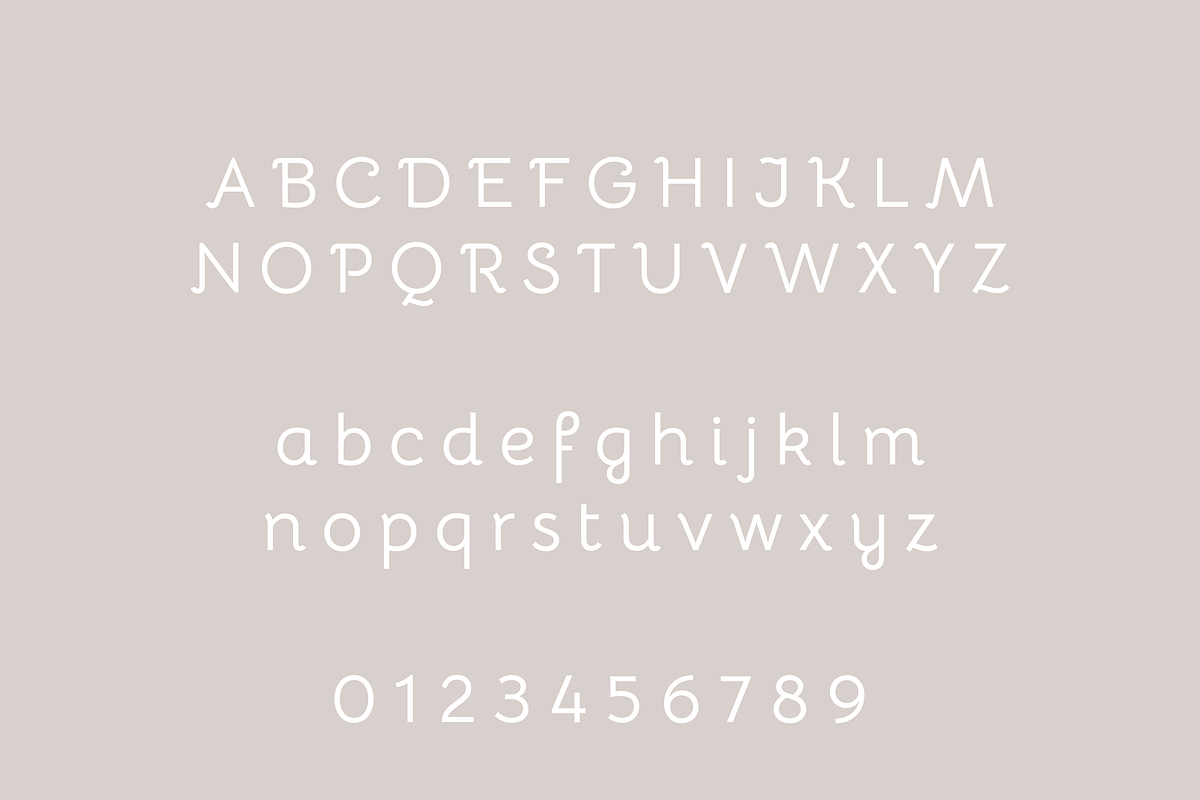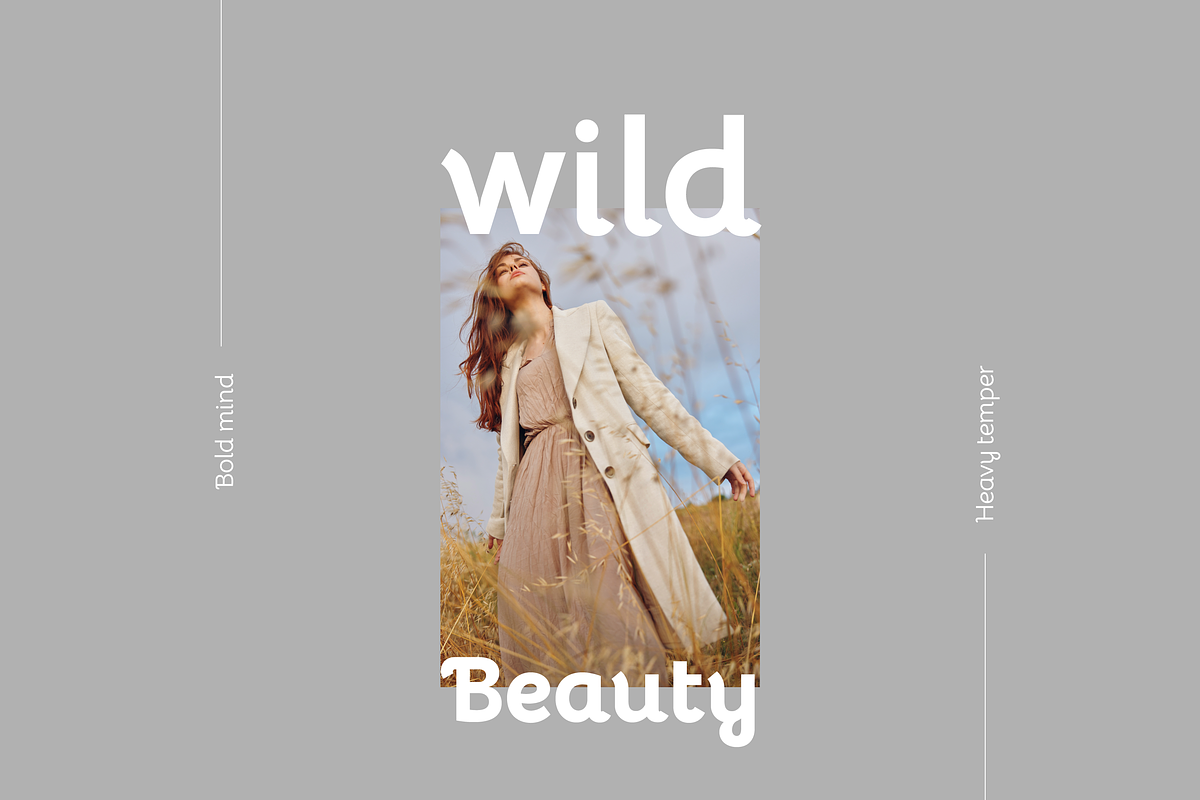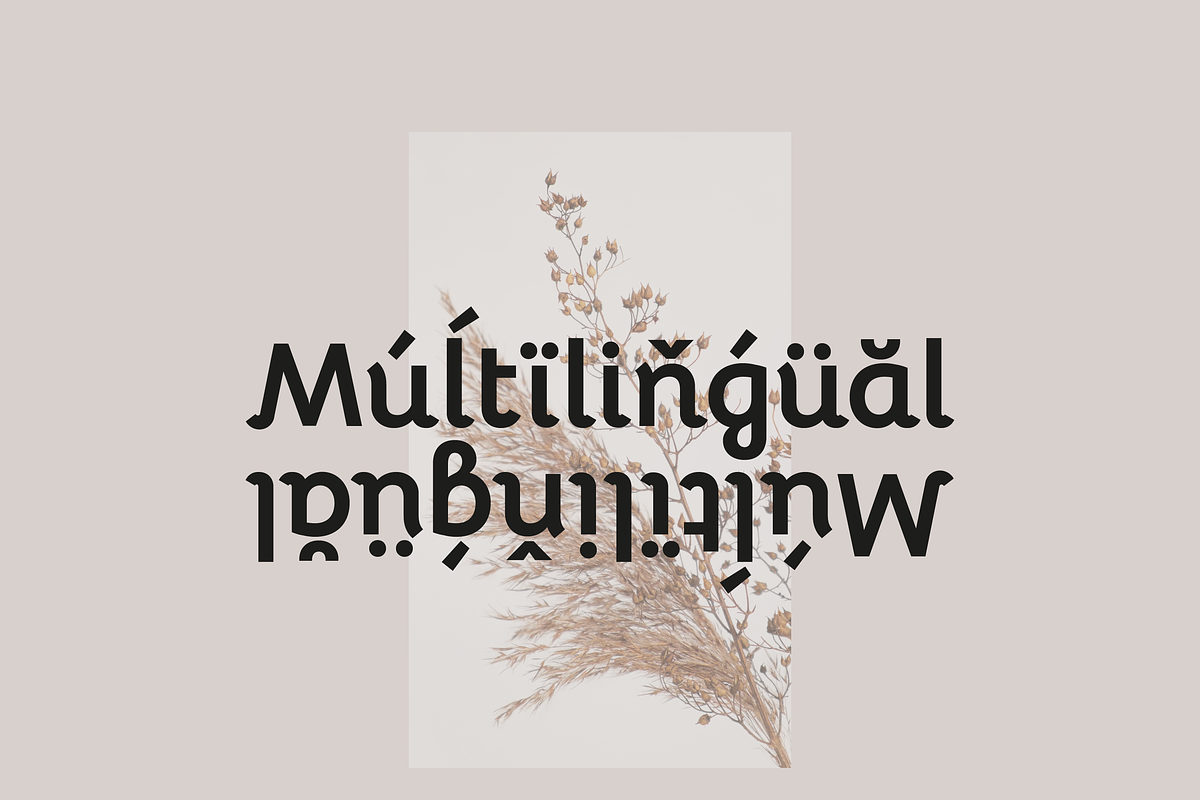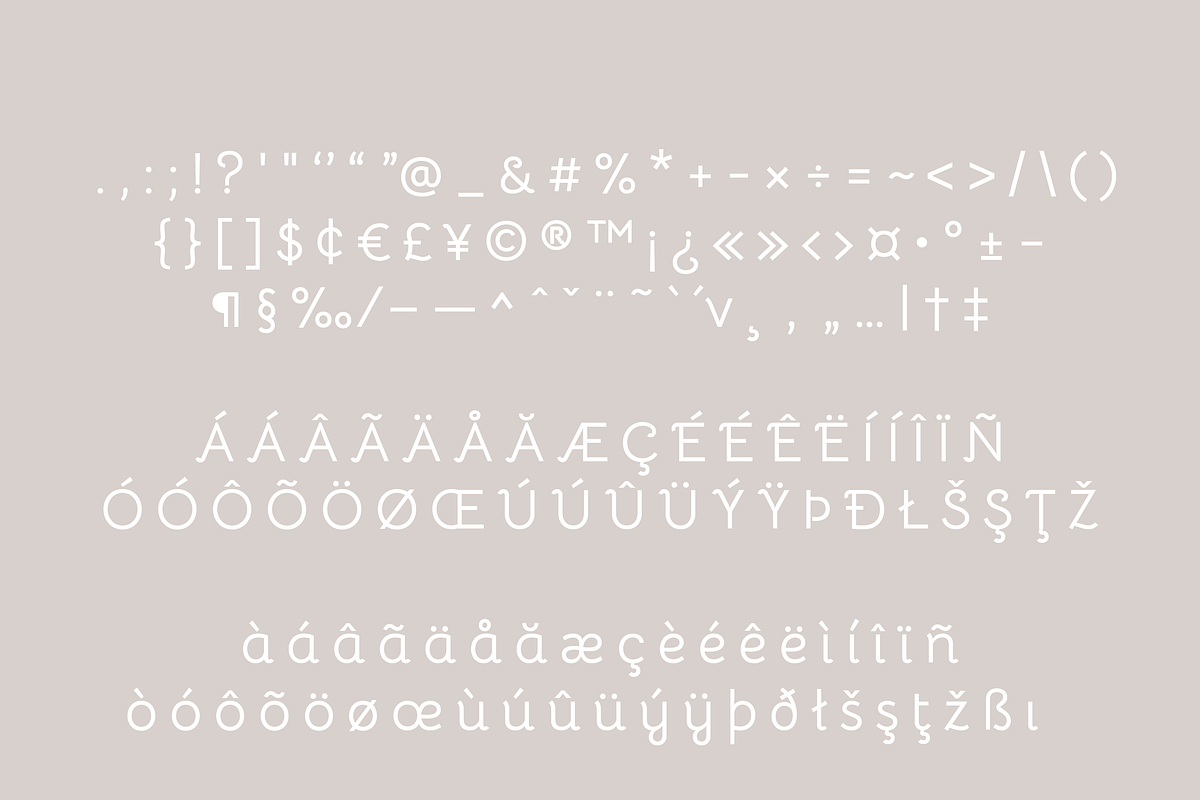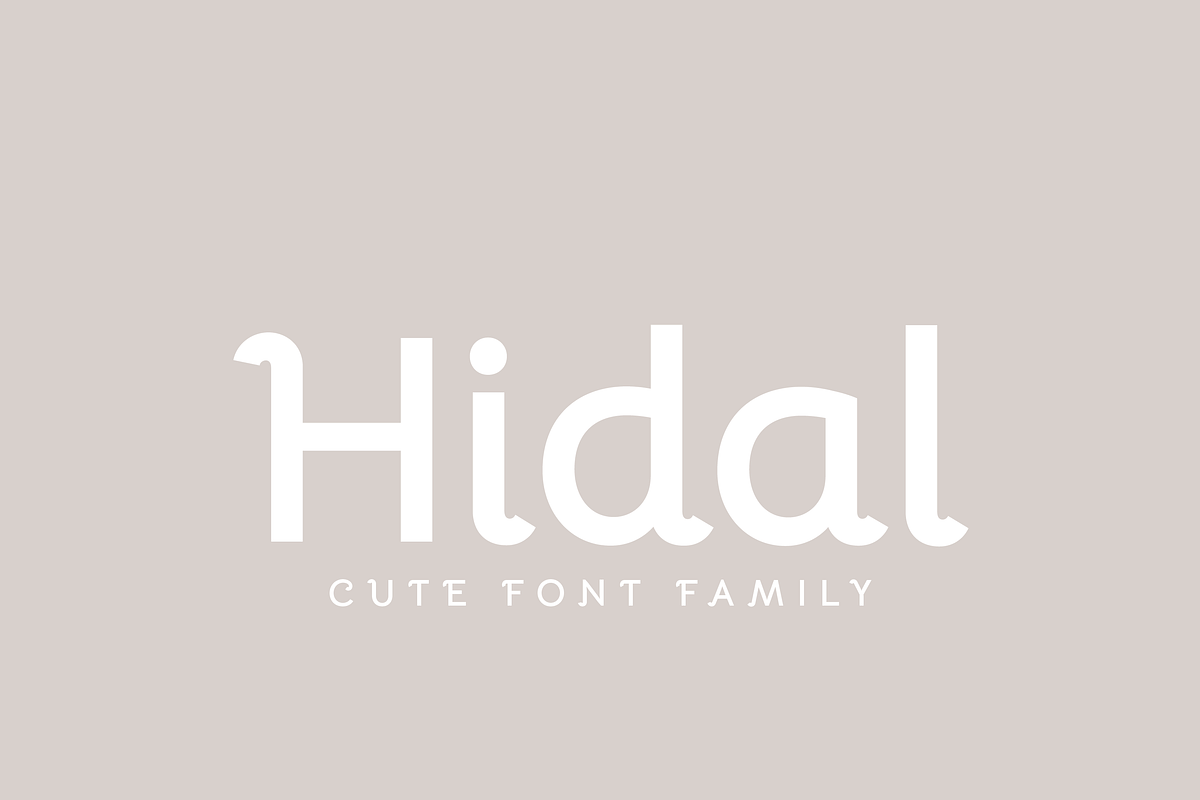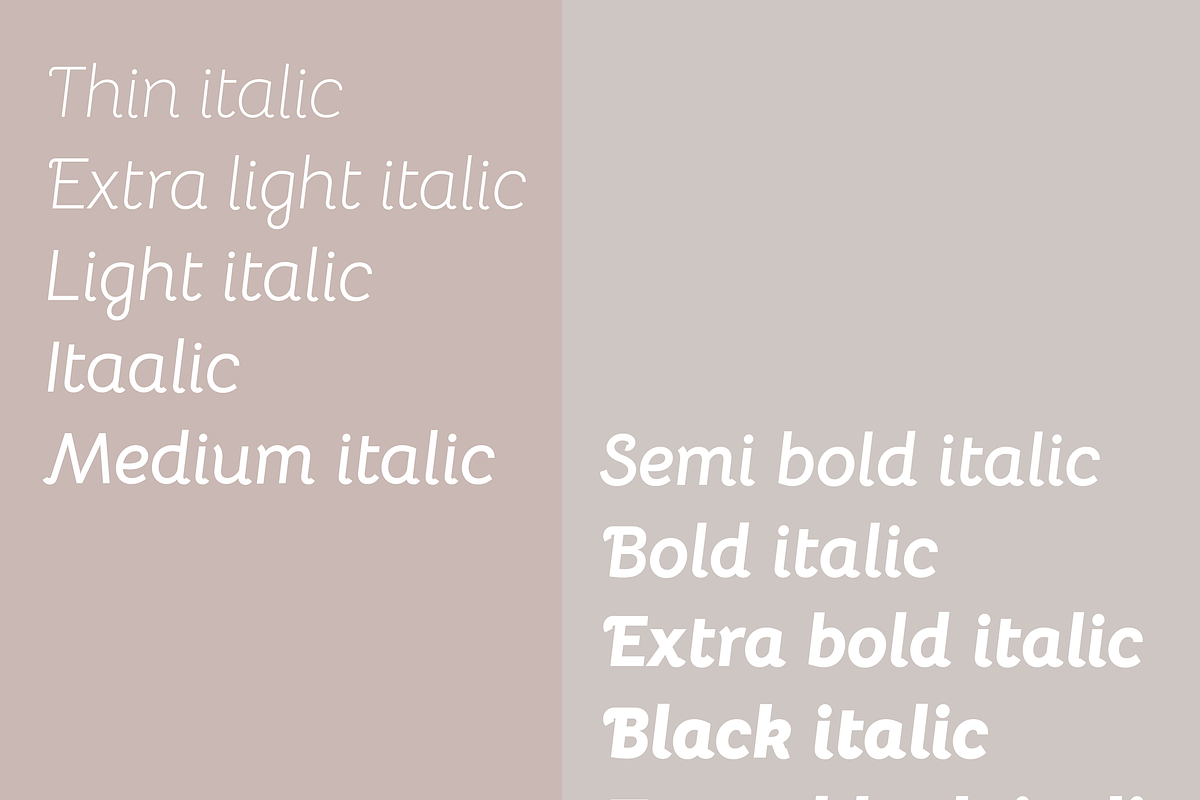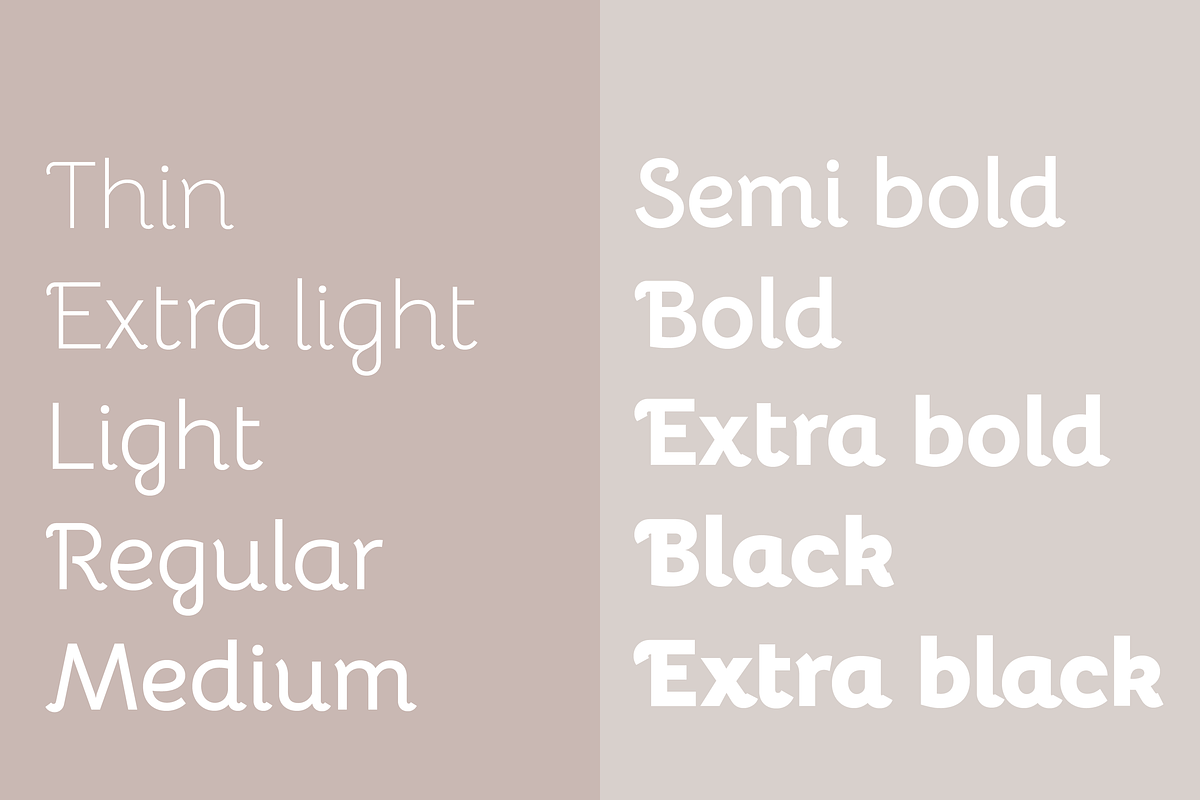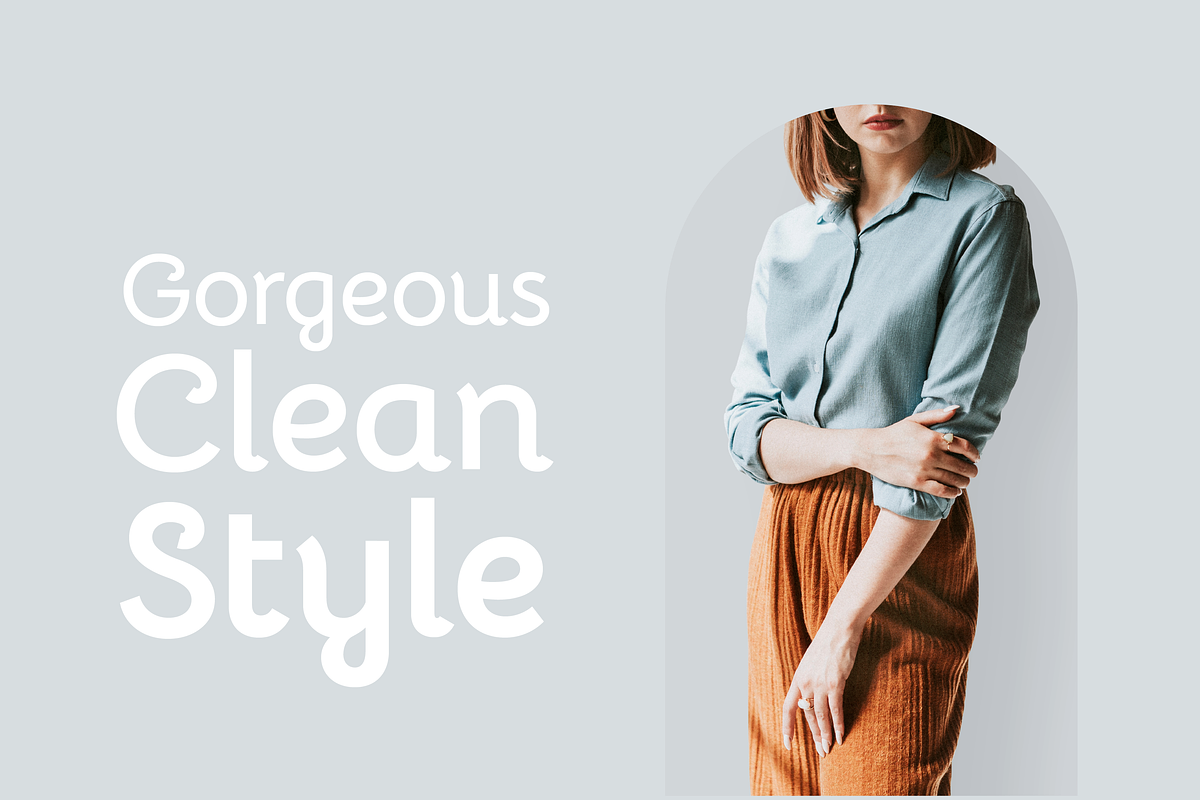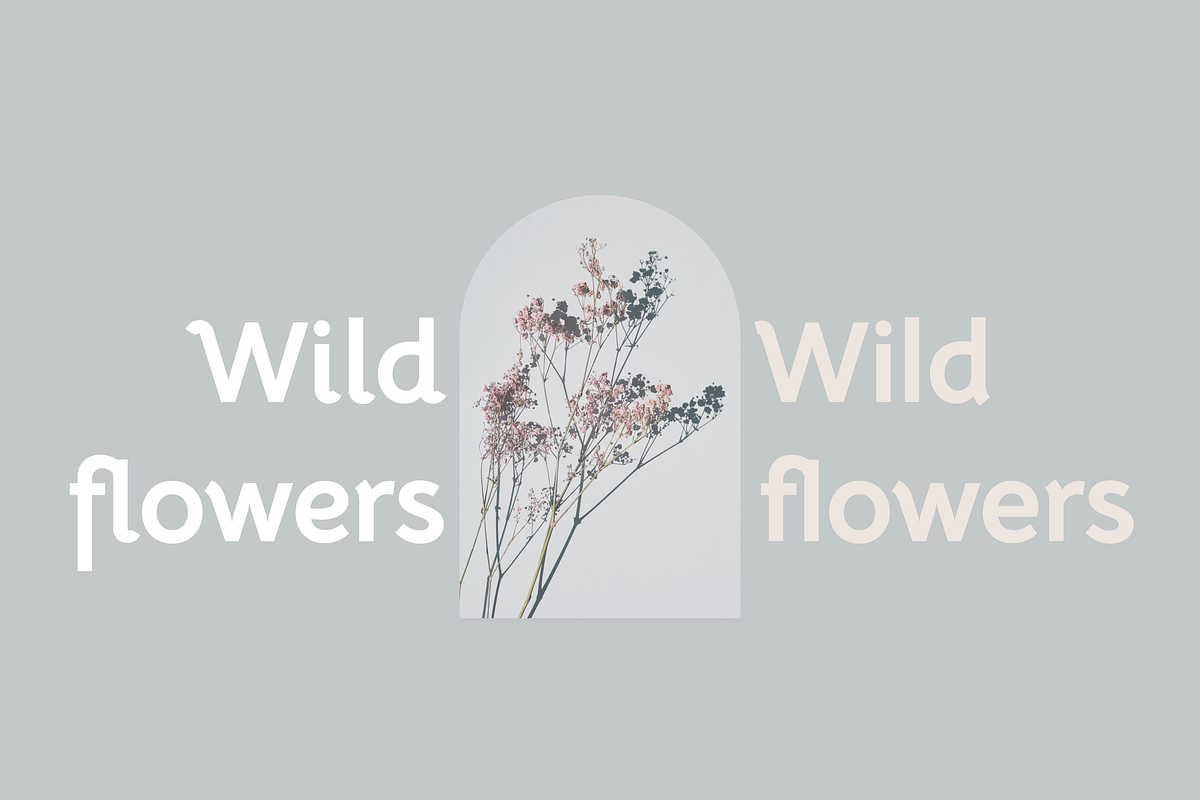
Hidal | Modern Sans Family
Hidal – Charming & Versatile Ornamented Sans-Serif
Hidal is a decorative sans-serif typeface that blends low contrast, elegant ornamentation, and playful swash alternates to create a refined yet charismatic look. Striking the perfect balance between sophistication and approachability, Hidal is an excellent choice for branding, headlines, stationery, and editorial layouts.
Key Features: • Ornamented Sans-Serif – A unique mix of structured simplicity with decorative swash alternates. • 10 Weights + Italics – A highly flexible font family offering a wide range of styling options. • Refined Yet Playful – Ideal for both modern and traditional designs, adding a touch of charm. • Versatile Application – Perfect for branding, editorial layouts, signage, and invitations. • Personalized Typography – Alternates and decorative touches enhance creative possibilities.
Whether you need a font for sophisticated branding, expressive headlines, or stylish stationery, Hidal delivers a polished yet whimsical aesthetic that elevates any project.